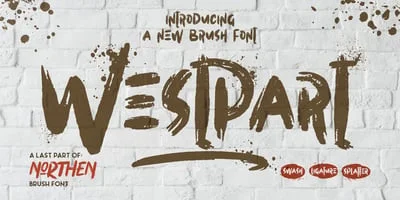
Westpart Font
Westpart Font is perfect for Western-themed restaurants, cowboy brands, rodeo events, frontier tourism, ranch marketing, rustic packaging, and authentic Americana design applications. This rugged typeface brings Wild West spirit and frontier authenticity to Western-inspired design projects.
Westpart Font is exciting because it captures the adventurous spirit of the American West with its bold letterforms that convey frontier courage and Western heritage while maintaining exceptional readability and cowboy appeal across Western-themed applications.
The Westpart Font family includes multiple weights and weathered variations that reflect the authentic character of Old West typography. This frontier collection provides designers with rugged options for creating memorable and authentically Western brand experiences.
Westpart Font offers designers access to an authentically crafted typeface that embodies the rugged spirit and adventurous heritage of the American Western frontier. This distinctive font features boldly designed letterforms with frontier details that create immediate associations with cowboy culture, Western adventure, and frontier authenticity. The typeface showcases rugged proportions and Western aesthetics that enhance frontier communications while maintaining professional functionality and broad accessibility. Its Western character makes it particularly suitable for ranch brands and Western-themed establishments that require typography capable of conveying frontier spirit, cowboy heritage, and Western authenticity. Westpart Font delivers exceptional frontier impact for applications where modern fonts feel inappropriate for Western communications and cowboy lifestyle branding. The font's Western appeal and frontier aesthetic make it an essential tool for designers working on projects that require typographic expression of cowboy culture, Western adventure, and frontier authenticity that resonates with audiences seeking genuine Western experiences and frontier visual communication.